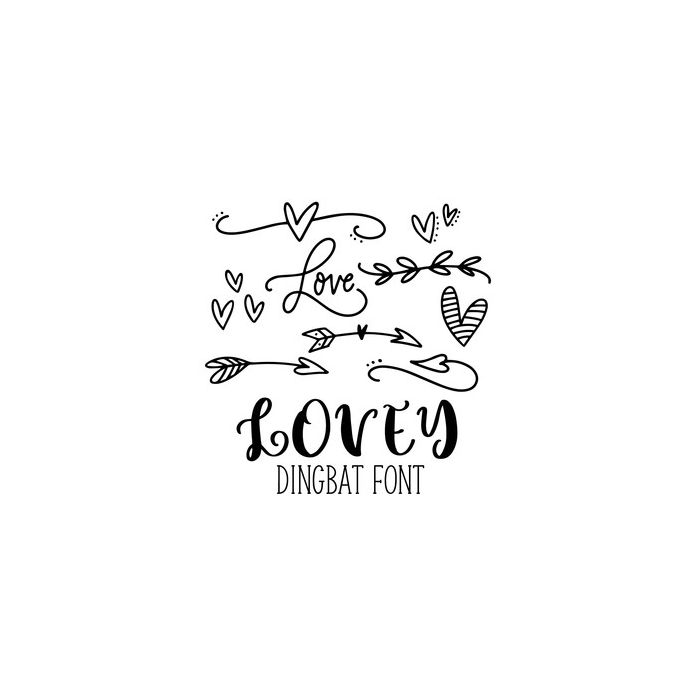
Lovey Dingbat includes 26 bonus shapes of hearts, arrows, love doodles, which will make designing so much fun. Type out the characters a-z to access the shapes.